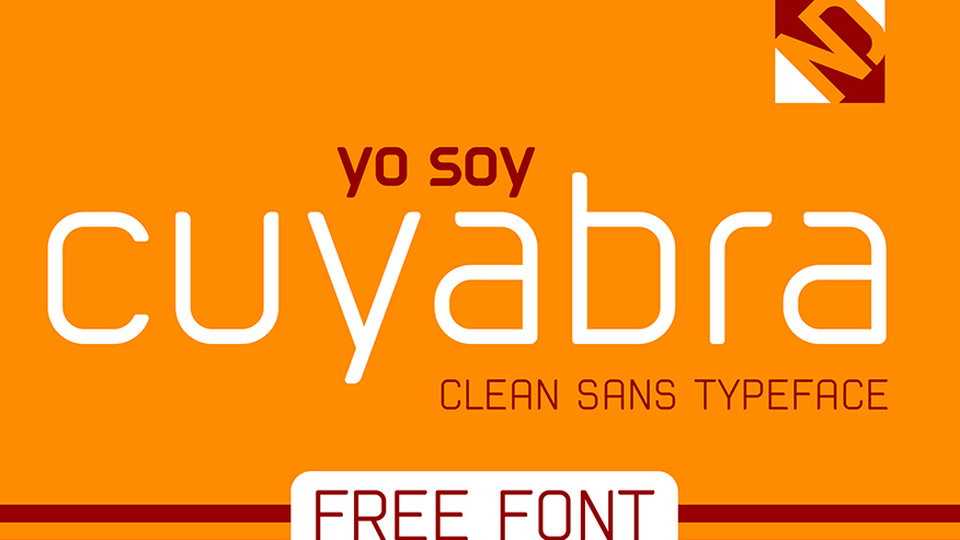
Download Cuyabra typeface, a modern clean sans serif font family in four styles. Cuyabr is suitable for tech and sports design, short texts and headlines, logos and other creative projects.
Designer: Néstor Delgado